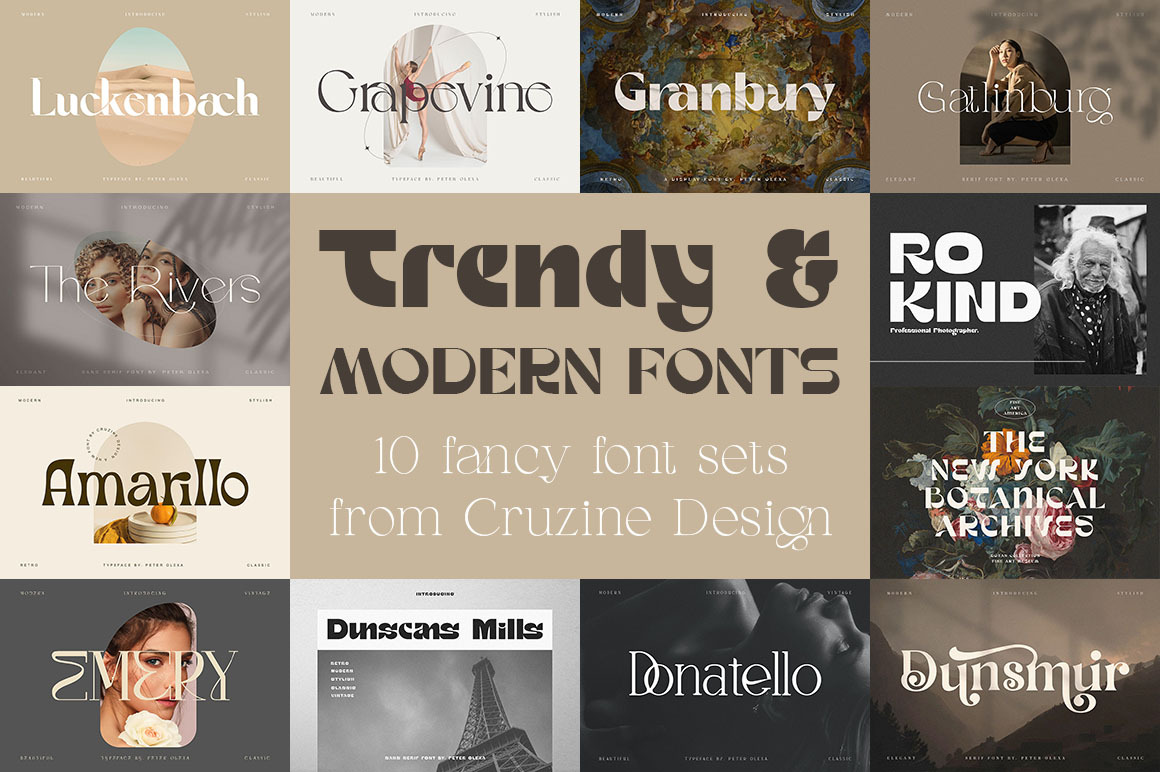
Trendy & Modern Fonts - 10 Sets
Brand new fancy & creative style typography bundle with 10 multilingual display font sets! All these fonts are trendy, classy, retro & unique so you can use it for any kind of modern or artistic style branding projects or T-shirt designs. Don’t miss this creative & fashion style font & branding bundle 😉
- Great for any branding projects, posters or T-shirt designs…
- Multilingual support, stylistic alternates & ligatures